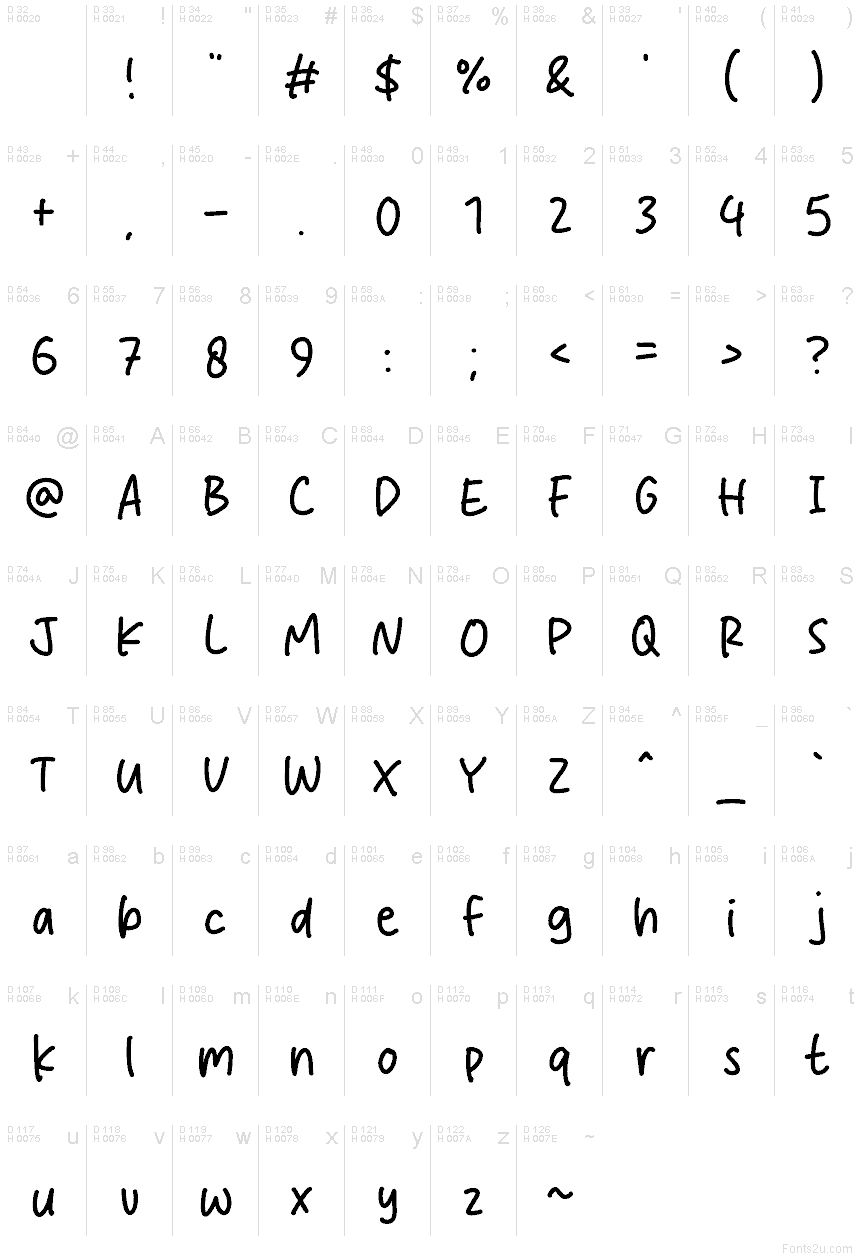
Sweet Melon
Sweet Melon font by MJType is a free handwritten display font. It’s the answer when you need friendly, human warmth without losing clarity: rounded strokes feel soft and inky, a gentle bounce adds charm, and the spacing keeps lines tidy. The result is handwriting that reads cleanly at small sizes yet stays lively and personable.
Using Sweet Melon, headlines pop on food packaging, cafe menus, kids’ books, classroom printables, recipe cards, sticker sheets, and cheerful brand marks. This free font brings a consistent, upbeat rhythm that guides the eye and lifts the mood. Pair it with a clean sans for body text, and let Sweet Melon handle the smile-making moments.